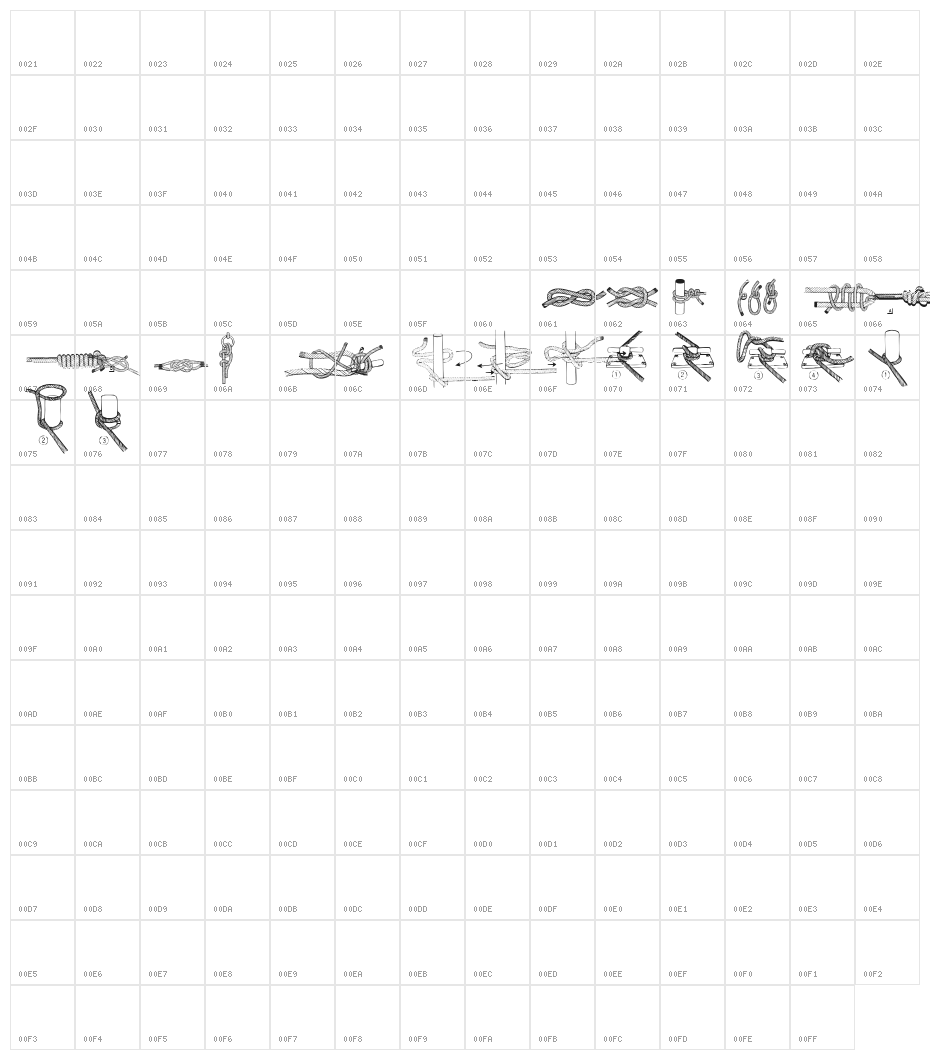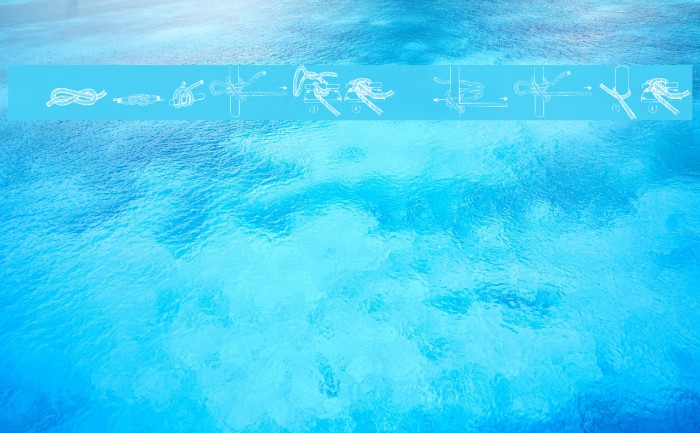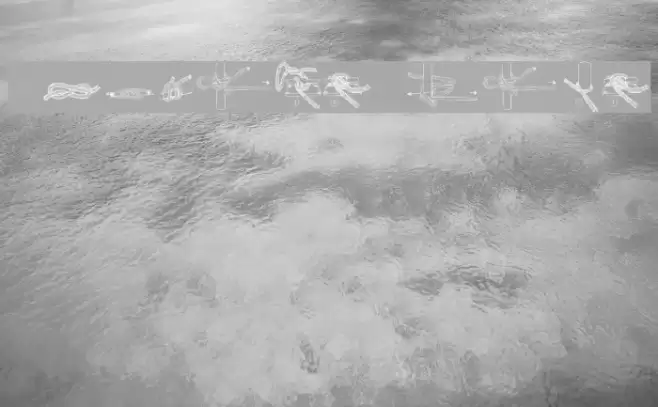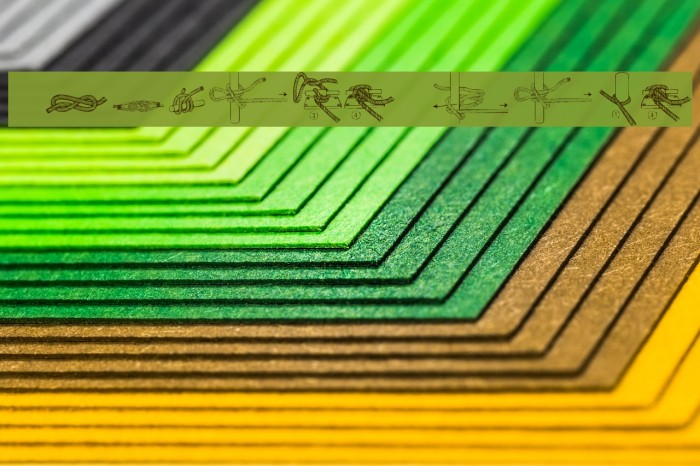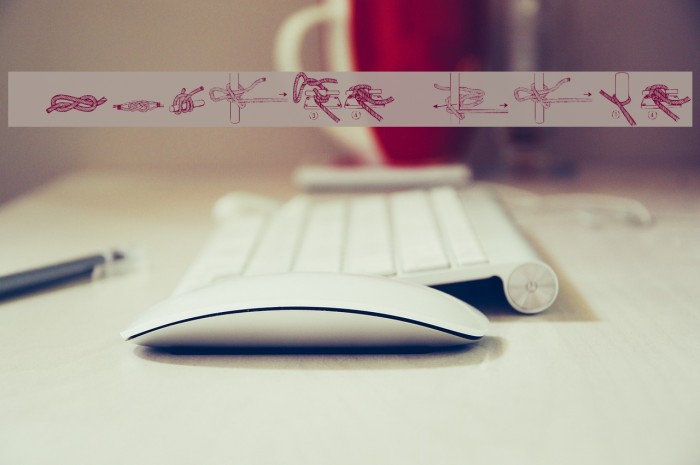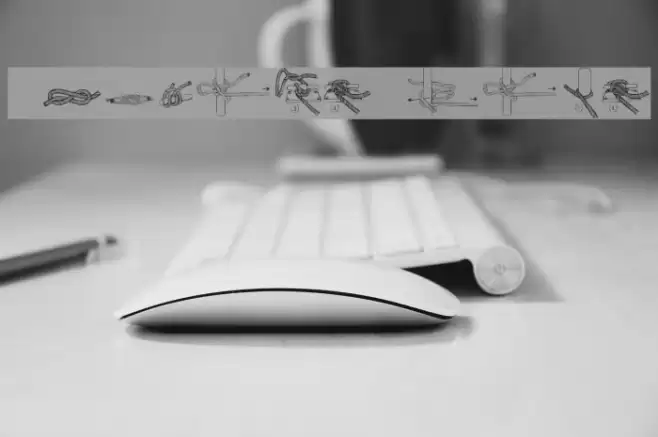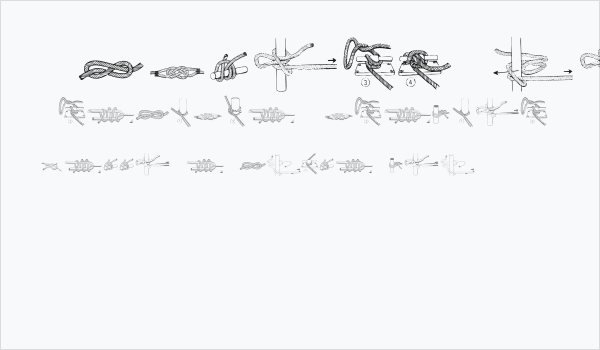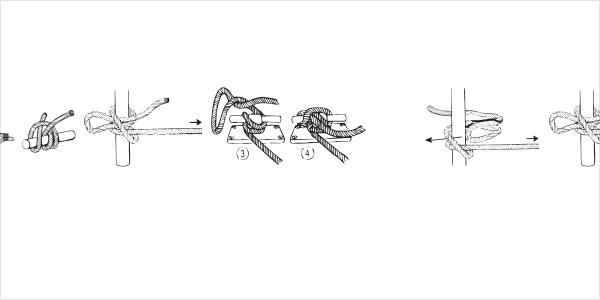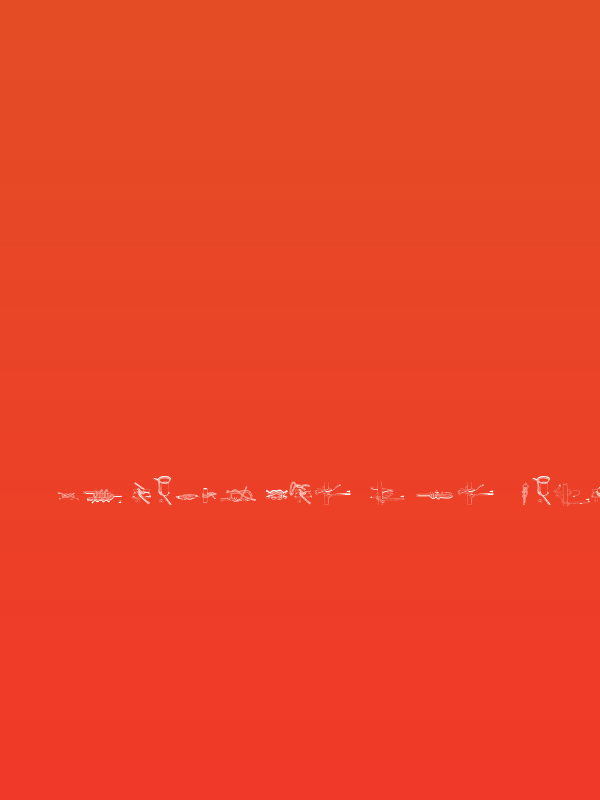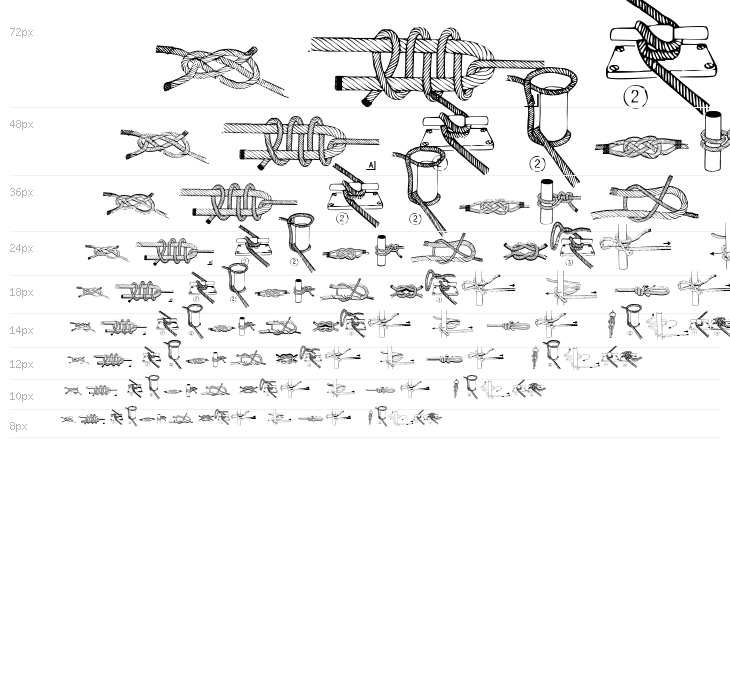
SailorsKnots Font
SailorsKnots Description
A highly decorative and illustrative font composed of detailed drawings of sailor's knots and step-by-step knot-tying diagrams, with each character represented by a unique knot or instructional sequence. The glyphs are intricate, mimicking hand-drawn technical illustrations rather than traditional letterforms.
| Overall Style | Decorative, Nautical, Illustrative |
| Use Case | Display, Themed graphics, Educational diagrams |
| Proposed Projects | Nautical-themed posters, educational materials about knots, maritime branding, adventure book covers, themed event invitations. |